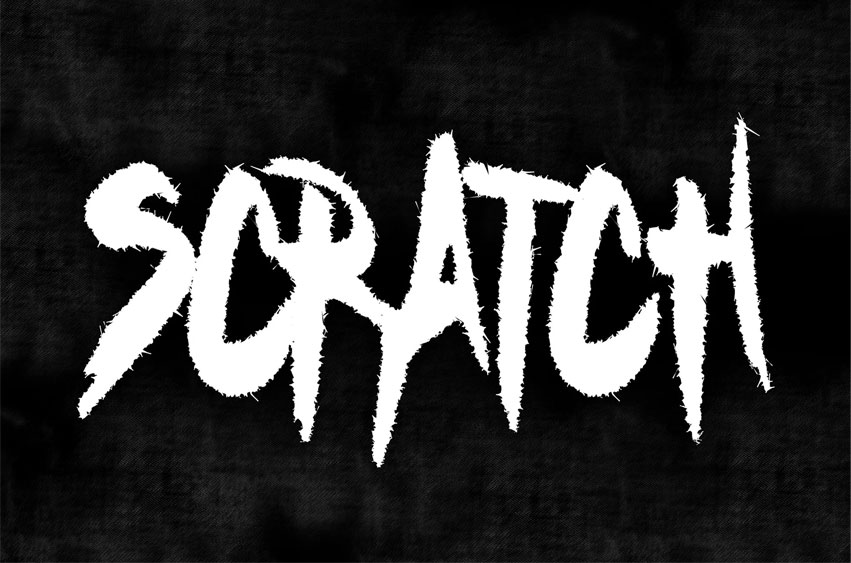
Scratch Font
Scratch Font Crafted with high attention to detail, it gives you the best design experience.
Most suitable for poster design, headlines, quote writing, pamphlets, greeting cards, product packaging, book covers, logotypes, album covers, etc.